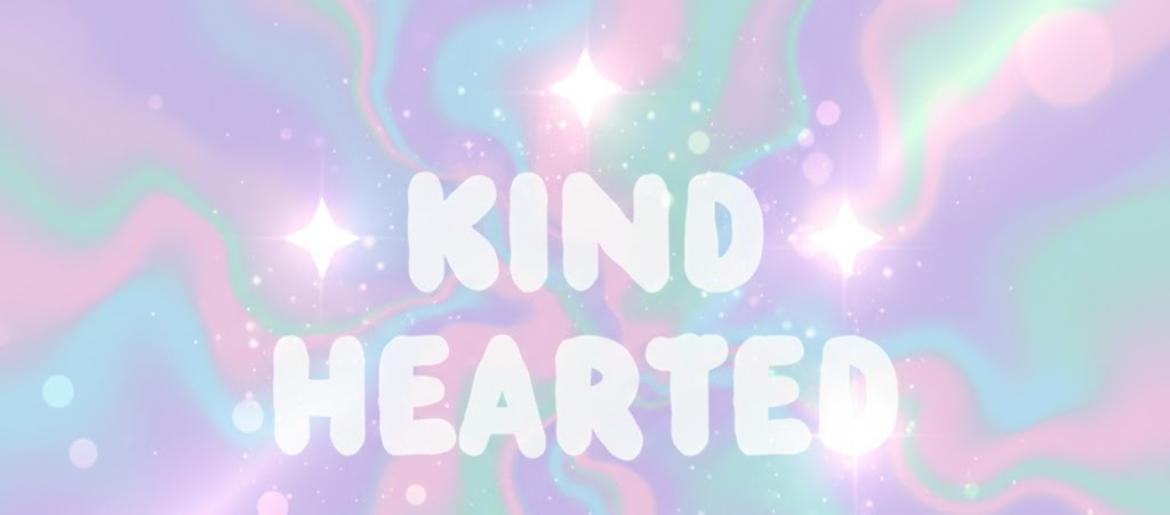
Kind Hearted Font
Kind Hearted Font is a warm handwritten-style typeface created to express friendliness and emotion. Its soft curves and natural letter flow make it perfect for quotes, greeting cards, journals, children’s designs, and personal branding. The gentle personality of this font adds sincerity and charm, helping creative projects feel welcoming, heartfelt, and visually comforting.
➤ Font Name: Kind Hearted
➤ Designer: Fikryal Studio
➤ Style: Cartoon